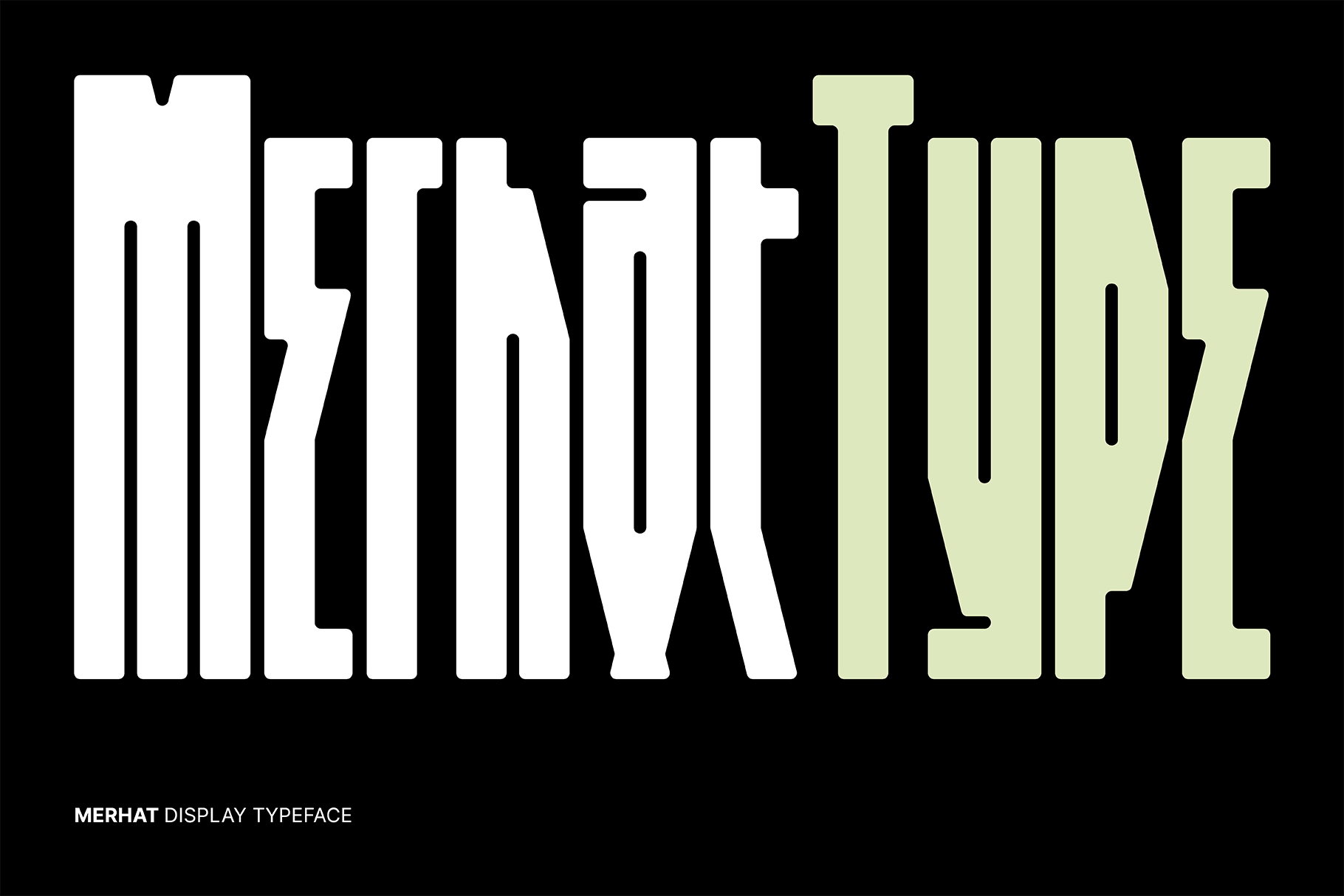
Merhat | Condensed Display Font
Merhat is a distinctive modern display font characterized by its geometric forms and condensed structure. Its slightly rounded corners add a touch of softness to the otherwise sharp aesthetic. Designed for impact, Merhat is ideal for logos, graphic design projects, and typography where a bold and unusual statement is desired. Its grunge and punk influences make it suitable for music branding and edgy designs, while its versatility extends to applications like t-shirt graphics.